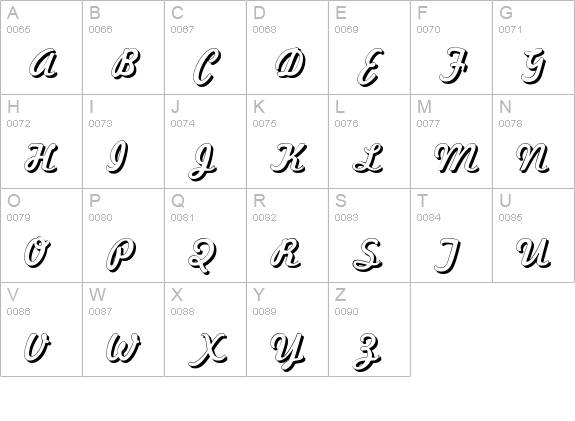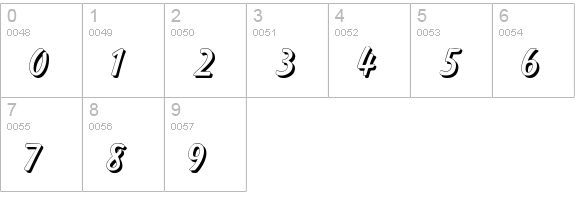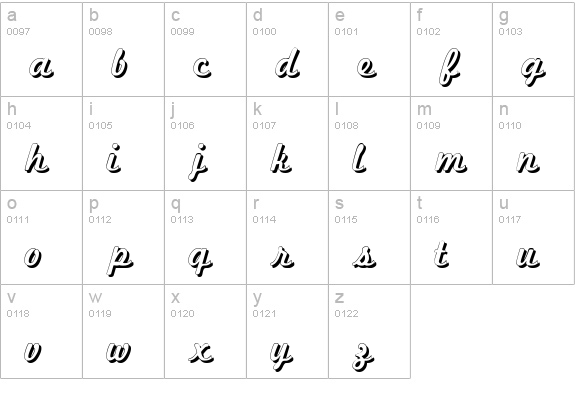
Marketing Script Shadow Font Details
Introducing Marketing Script Shadow, a mesmerizing and captivating font that is sure to leave a lasting impression on your audience. With its elegant and sophisticated design, this font exudes a sense of professionalism and creativity, making it perfect for a wide range of marketing materials. The unique feature of Marketing Script Shadow lies in its shadow effect, which adds depth and dimension to the letterforms. This gives your text a three-dimensional appearance, making it stand out from the crowd and grabbing the attention of your target audience. But what's even better is that Marketing Script Shadow is not only visually stunning, but it is also free! Yes, you read that right. This font is freely available to download at FontsMarket.com, a leading platform for high-quality fonts. Whether you're a graphic designer, marketer, or business owner, you can now elevate your projects without breaking the bank. With Marketing Script Shadow, you can effortlessly create eye-catching logos, advertisements, brochures, social media graphics, and more. Its versatility allows you to experiment with different styles and layouts, ensuring that your marketing materials are always fresh and engaging. The clean and legible letterforms of Marketing Script Shadow ensure readability across various mediums, whether it's print or digital. Its smooth curves and elegant strokes add a touch of sophistication to your designs, making your brand look polished and professional. So why wait? Enhance your marketing materials with the visually striking and freely available Marketing Script Shadow font. Download it today at FontsMarket.com and unleash your creativity like never before. Stand out from the competition and make a lasting impression with this remarkable font.